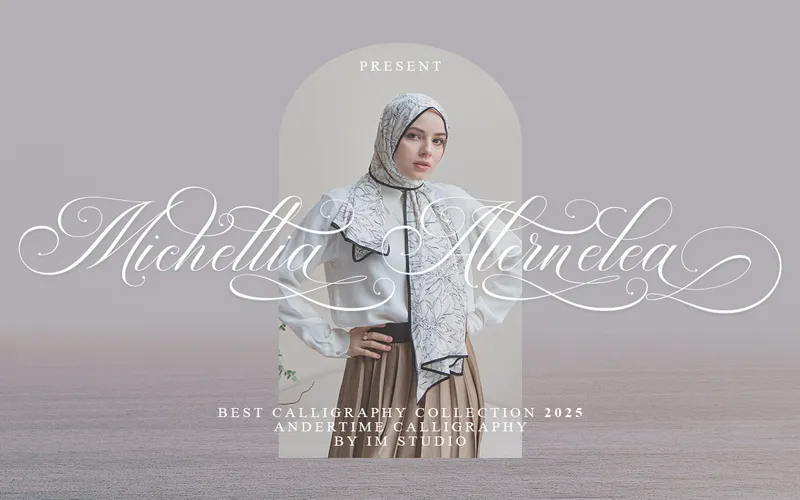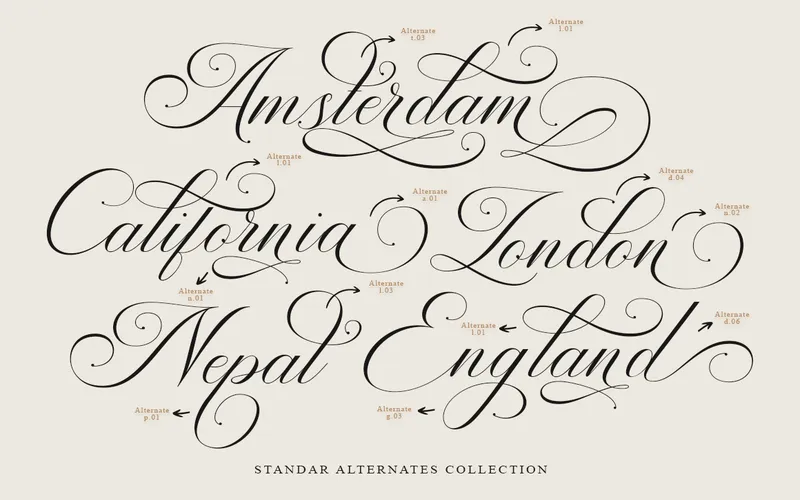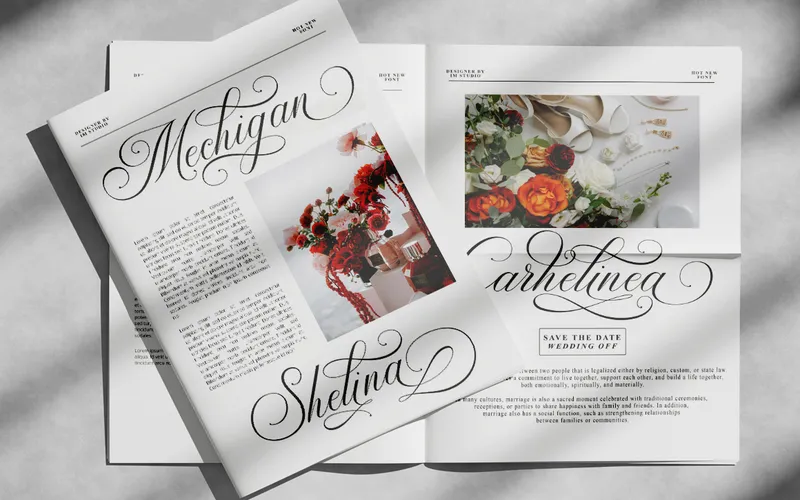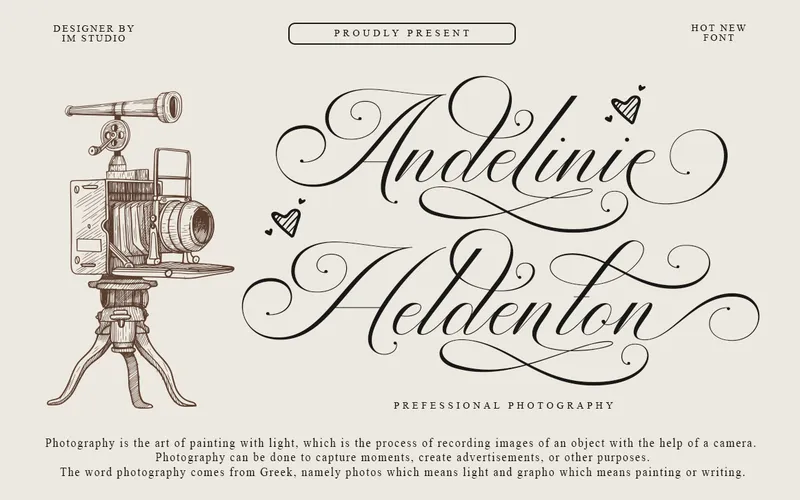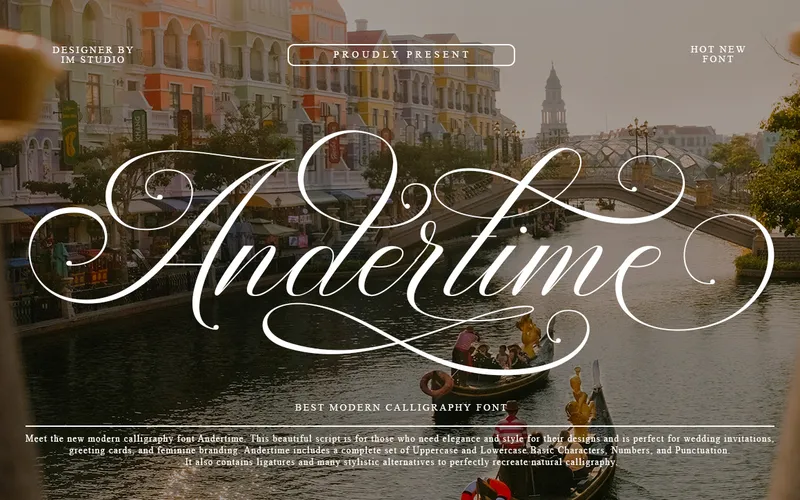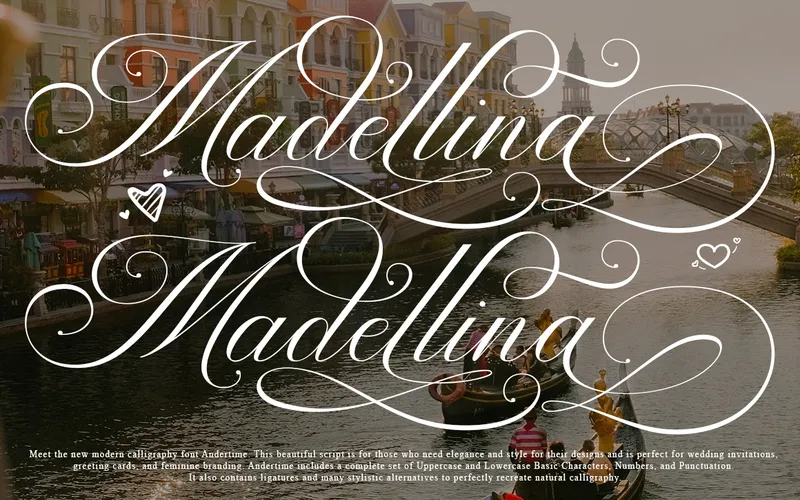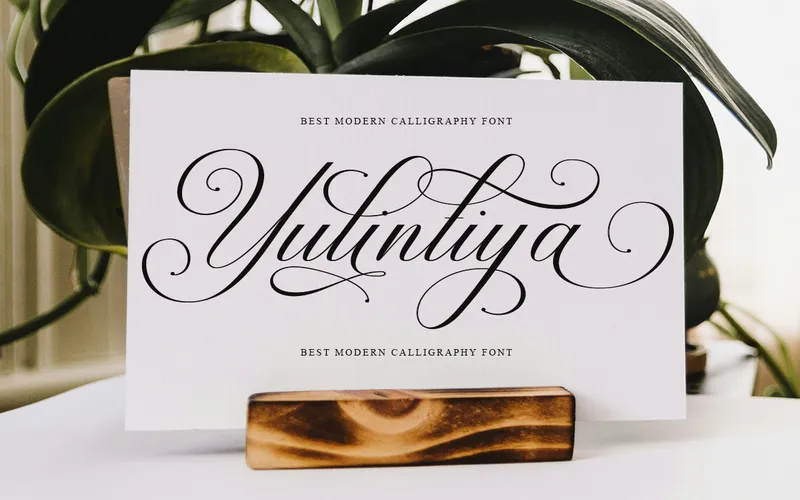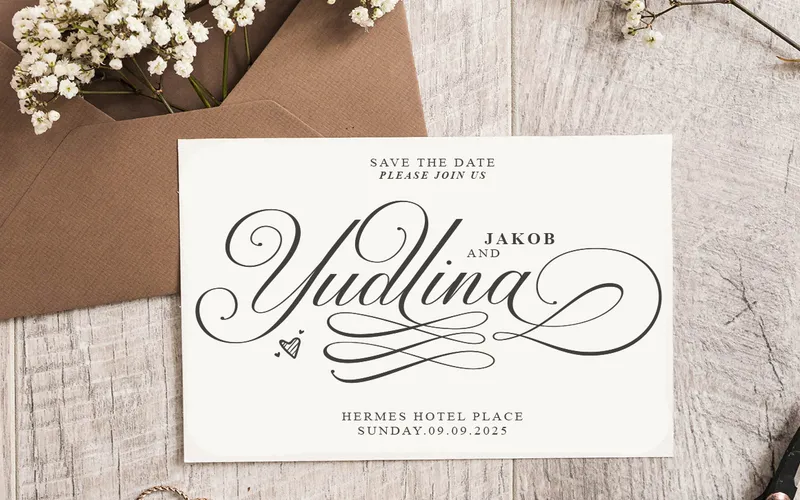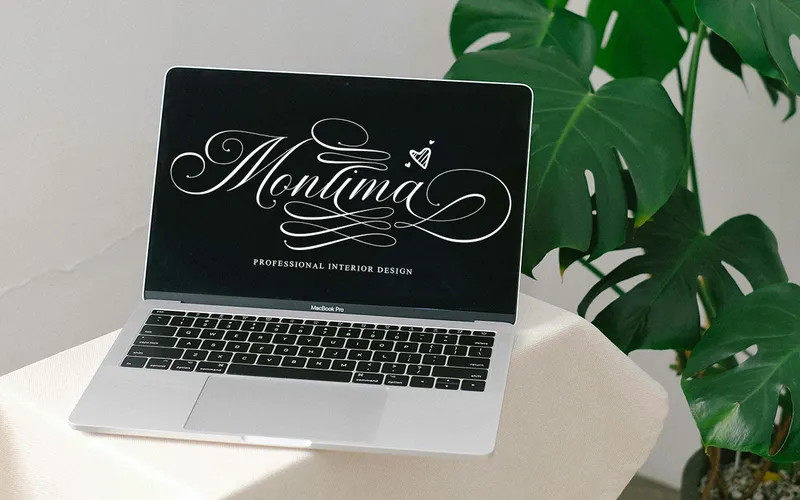
• Andertime - Calligraphy Script Font, perfect for creating logos, signage, labels, posters, signatures, and more
Andertime – Calligraphy Script Font
The Andertime Calligraphy Script Font is a contemporary typeface available in OTF & TTF files.
This calligraphy font is It features a regular style enriched with stylistic swashes, alternates, and ligatures that help elevate any design.
Its PUA encoding allows easy access to all glyphs, making customization simple even for non-designers.
You can use it to craft book covers, fashion branding, inspirational quotes, personalized stationery, and many other unique creatives projects.
The Andertime – Calligraphy Script Font Can Be Used To:
• Design elegant and professional logos.
• Create romantic and stylish wedding invitations.
• Enhance product packaging with a sophisticated, handwritten look.
• Design eye-catching social media graphics and quotes.
• Make book covers and posters visually striking.
• Turn simple quotes into beautifully designed messages.
• Elevate fashion and beauty branding with graceful typography.
• Add refinement to business cards and corporate stationery.
• Special Characters Included: Alternatives & Ligatures
A Preview Of The Andertime – Calligraphy Script Font:
Andertime Font
Calligraphy Script Font
Calligraphy Font
Andertime Script Font
Andertime Calligraphy Font
Anderimte Font Used On Magazine Print
Andertime Calligraphy Script Font Preview
Invitation card designed with the Andertime Script Font
Card designed with the Andertime Script Font
Laptop Mockup With The Andertime Font